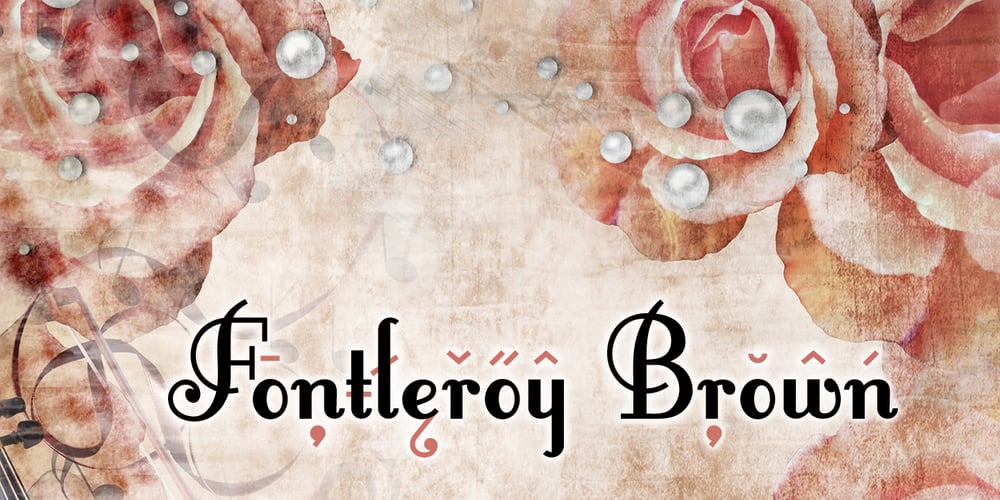
Fontleroy NF Pro Font Family was designed by Nick Curtis, Roger S. Nelsson and published by CheapProFonts. Fontleroy NF Pro contains 2 styles and family package options. I have completely redone the spacing in this font, making the sidebearings more conventional. And after replacing the kerning with fresh pairs working together with the new spacing the font looks like a real gem. I love it! The inline version has a wider spacing after the letters CEK = no connecting words. Otherwise just as lovely and retro! Nick Curtis says: “Here’s a strange hybrid: I took the lower case from the formal script font Stuyvesant, straightened out its rather extreme 22° slant, and combined them with caps from the font Bellevue, again making them upright, and adding an inline effect. The result is a font that flows very nicely, with a nice balance between clean lowercase characters and swashy caps. Thanks to Deb Dunbar for naming this font. Fontleroy Brown is the solid version, produced at the request of the King of Ding, Jeff Levine.” ALL fonts from CheapProFonts have very extensive language support: They contain some unusual diacritic letters (some of which are contained in the Latin Extended-B Unicode block) supporting: Cornish, Filipino (Tagalog), Guarani, Luxembourgian, Malagasy, Romanian, Ulithian and Welsh. They also contain all glyphs in the Latin Extended-A Unicode block (which among others cover the Central European and Baltic areas) supporting: Afrikaans, Belarusian (Lacinka), Bosnian, Catalan, Chichewa, Croatian, Czech, Dutch, Esperanto, Greenlandic, Hungarian, Kashubian, Kurdish (Kurmanji), Latvian, Lithuanian, Maltese, Maori, Polish, Saami (Inari), Saami (North), Serbian (latin), Slovak(ian), Slovene, Sorbian (Lower), Sorbian (Upper), Turkish and Turkmen. And they of course contain all the usual “western” glyphs supporting: Albanian, Basque, Breton, Chamorro, Danish, Estonian, Faroese, Finnish, French, Frisian, Galican, German, Icelandic, Indonesian, Irish (Gaelic), Italian, Northern Sotho, Norwegian, Occitan, Portuguese, Rhaeto-Romance, Sami (Lule), Sami (South), Scots (Gaelic), Spanish, Swedish, Tswana, Walloon and Yapese.